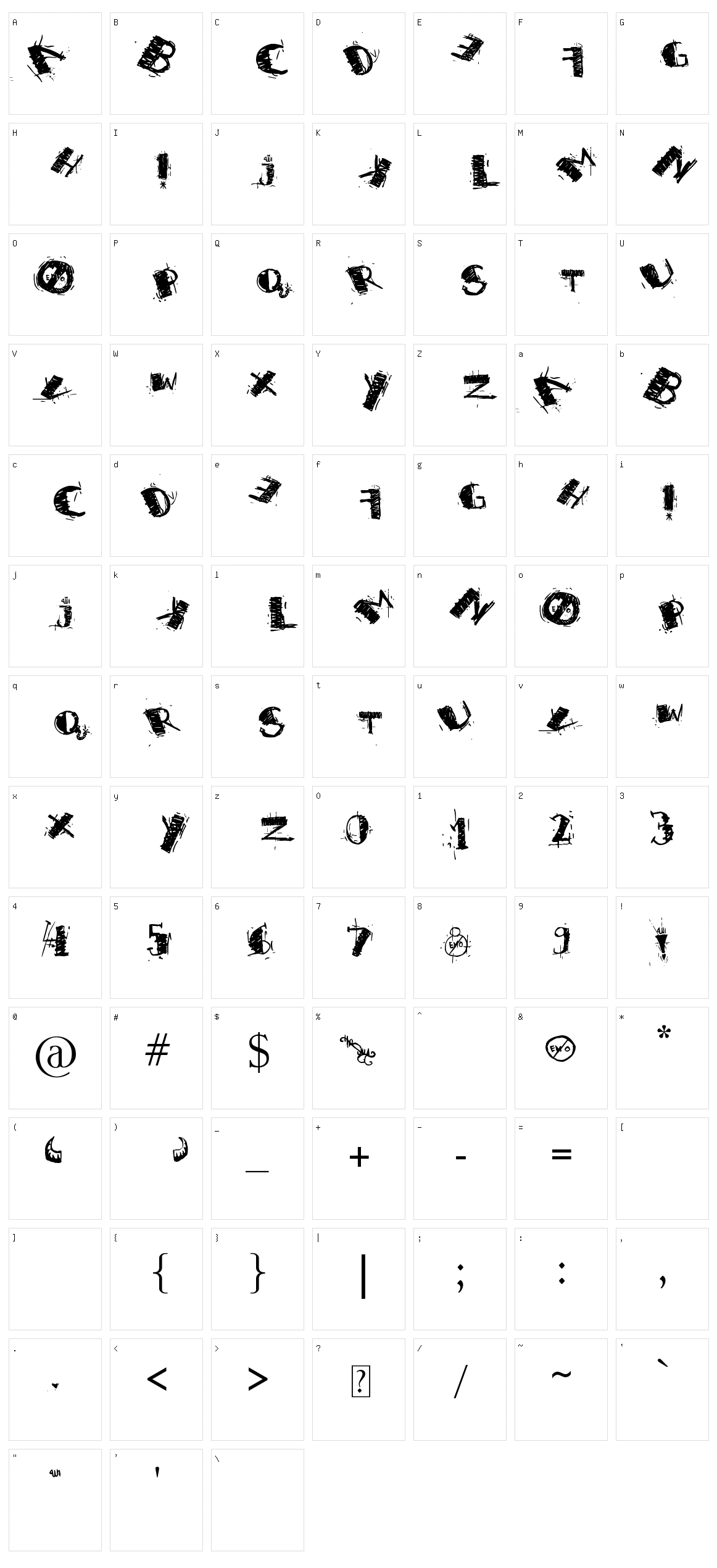
The free font I'm Not Emo is carefully designed by Sweet (H...sya) Revenge, showcasing a thoughtful balance of creativity and usability and falls under the Distorted font style. When you download the ZIP file, it contains only 30.83 KB of font files, making it lightweight and quick to download. Please review the license details below to understand permitted usage and distribution rights. If license information is not available, we recommend using this font for personal projects only or contacting the author directly for commercial usage permissions.